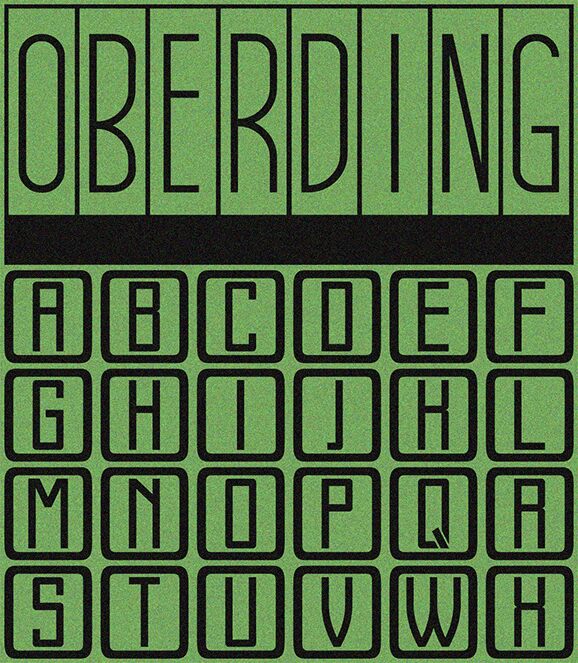
Oberding Flat, a free retro arcade caps display font by Vladimir Nikolic, wraps chunky geometric letters inside rounded rectangular frames for a compact, badge-like look. The repeated outer border and flat-sided forms give the caps a toy-electronics feel, somewhere between old game branding and stamped signage.
That makes it a natural pick for poster headlines, album covers, title cards, logo sketches, and packaging where the lettering needs to feel enclosed and graphic. As a free font, it also suits short labels, monograms, and merch graphics, because the boxed-in caps create their own built-in shape without needing extra framing.
Oberding Flat Regular font presentation and specimen